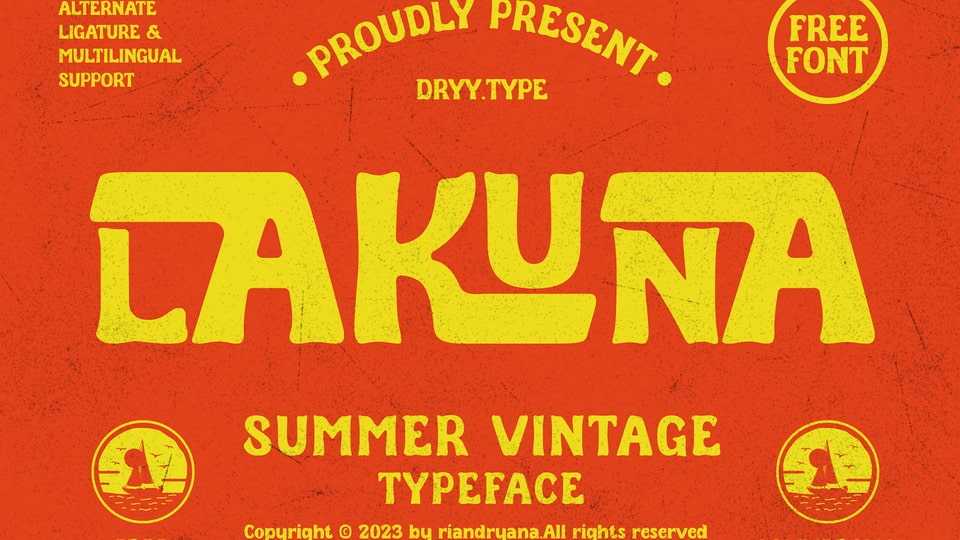
Download Lakuna font, a summer vintage typeface for adding a retro and nostalgic feel to designs. Lakuna font is characterized by its hand-drawn style, distressed texture, and decorative elements.
Designer: Dryy.type